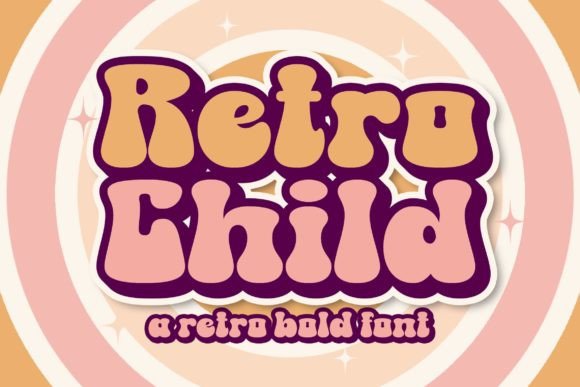
Introducing Retro Child Font - the ultimate solution for anyone searching for the best font for vintage T-shirts! This quirky and bold display font has been created by Blankids Studio, designed to add a touch of coolness and funkiness to your designs.
Retro Child is the perfect font for those looking to create groovy band posters, hippie logos, social media posts, packaging, magazine covers, and any other creative project that requires a unique and eye-catching font. Its distinctive letter forms are sure to stand out and catch the attention of your target audience.
What sets Retro Child apart from other fonts is its versatility. It can be used to create a retro and vintage look, as well as modern and edgy designs. Whether you're a graphic designer, a marketer, or a small business owner, Retro Child is the font you need to elevate your designs and make them truly unforgettable.
Not only does Retro Child look great, but it's also incredibly easy to use. Its bold and clean lines ensure that it's readable at any size, making it perfect for T-shirt designs, product packaging, and even billboards. With Retro Child, you can be sure that your message will be seen loud and clear.